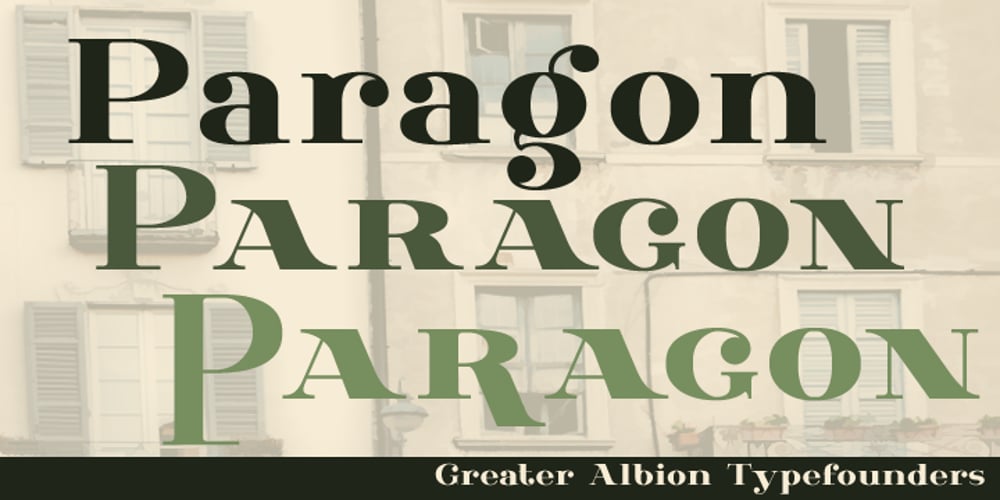
Paragon Font Family was designed by Paul James Lloyd and published by Greater Albion Typefounders. Paragon contains 9 styles and family package options. Paragon is a display Roman family of nine faces, combining elements of formality and fun. It embodies a high degree of contrast between near hairline horizontal strokes and bold vertical strokes. The family is offered in three widths and in regular, small capitals and title faces. Use Paragon to lend impact to your next design project.